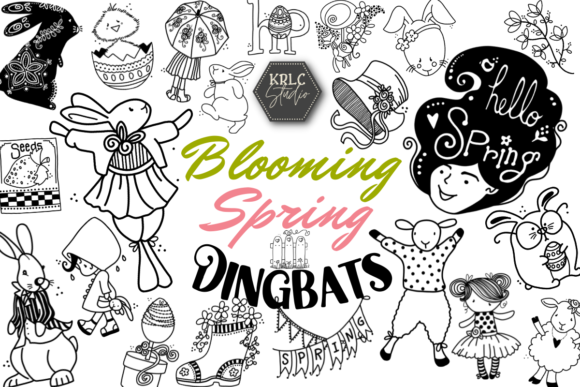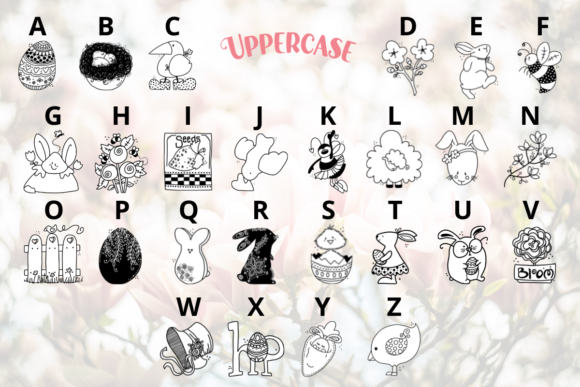
About Blooming Spring Font
Blooming Spring is a delightful and versatile dingbats font that brings the essence of Easter and springtime to your designs. With its unique and charming symbols, this font is perfect for adding a touch of blooming cuteness to all your Easter projects.
The symbols in Blooming Spring capture the spirit of the season with elements like flowers, eggs, bunnies, chicks, and other Easter-related icons. These whimsical and playful symbols can be used in a variety of creative projects, such as designing cards, programs, posters, or scrapbook pages.
For Easter cards, Blooming Spring offers a range of adorable symbols that can bring a cheerful and festive vibe to your designs. Whether it’s a cute bunny, a colorful egg, or a blooming flower, these symbols can be combined to create eye-catching and personalized Easter cards. The font allows you to express your creativity and add a unique touch to your greetings.
When designing programs or posters for Easter events, Blooming Spring can be a valuable asset. The charming symbols can be used to highlight important information or add decorative elements to your designs. Whether it’s a floral border, an Easter egg pattern, or a bunny icon, this font helps create visually appealing and engaging materials.
Scrapbook enthusiasts will also find Blooming Spring to be a valuable addition to their collection. The symbols can be used to decorate scrapbook pages, adding a touch of springtime cheer and capturing the memories of Easter celebrations. Whether you’re creating a page dedicated to an Easter egg hunt, a family gathering, or simply the beauty of the season, this font provides a range of delightful options.
Overall, Blooming Spring is a unique and useful dingbats font that brings the essence of Easter and springtime to your designs. Its charming symbols and versatility make it a perfect choice for adding blooming cuteness to all your Easter projects, whether it’s cards, programs, posters, or scrapbook pages. Let your creativity blossom with Blooming Spring!